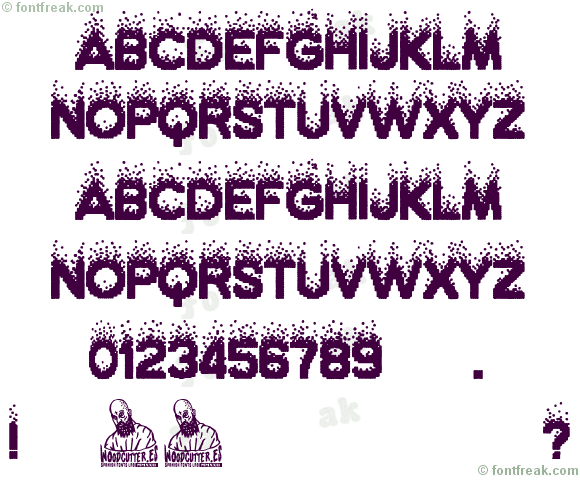
Efervescencia Programada
About Efervescencia Programada
The Efervescencia Programada font, designed by woodcutter Manero, is a distinctive display typeface that embodies a playful yet structured aesthetic. This font features a unique blend of rounded and geometric forms, making it ideal for various creative applications. Its stroke weight is moderate, providing a balanced contrast that enhances readability while maintaining visual interest. The spacing is well-considered, allowing for comfortable legibility, while the decorative elements add a sense of dynamism and energy, characteristic of its name, which translates to “programmed effervescence.”
This font shines in specific use cases, making it a versatile choice for designers. It is perfectly suited for vibrant wedding invitations, where its lively character can set a joyful tone. Additionally, it works well for movie posters, capturing attention with its unique flair. Restaurant menus can benefit from the font’s playful nature, enticing customers with an inviting presentation of their offerings. Furthermore, it can be used in branding materials for small businesses, giving them a distinctive edge in a competitive market. Content creators will also find the Efervescencia Programada font free download a valuable resource for adding personality to their projects.
Targeted toward graphic designers, small business owners, and content creators, this font provides a fresh approach to typographic design. It stands out not only for its aesthetic appeal but also for its versatility across various mediums. The Efervescencia Programada font encapsulates a sense of creativity that is hard to find, making it a must-have addition to any designer’s toolkit. Its unique characteristics and adaptability ensure that it will leave a lasting impression, no matter the project.